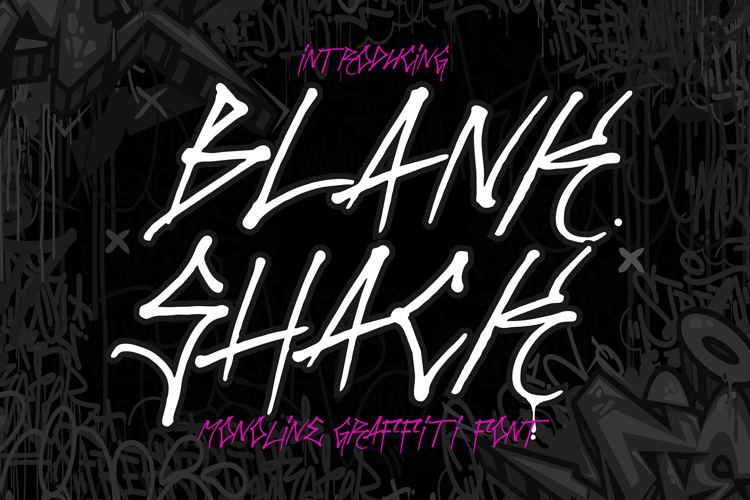
Blank Shack - Monoline Graffiti Font
Introducing Black Shack – the ultimate Monoline Graffiti Font that merges urban flair with sleek simplicity. Perfectly balancing the raw essence of street art with clean, modern lines, Black Shack is designed to add a bold and stylish edge to any creative project.
🎨 Urban Elegance: Black Shack captures the spirit of graffiti with its continuous, fluid strokes while maintaining a refined, monoline style. Each letter showcases a blend of urban attitude and minimalist design, making it ideal for projects that need a sophisticated street touch.
🌆 Stylish Rebellion: This font channels the rebellious energy of graffiti culture while delivering a clean and polished look. Perfect for branding, posters, event flyers, and more, Black Shack ensures your message stands out with a powerful yet elegant urban aesthetic.
🖌️ Monoline Precision: The consistent line thickness of Black Shack creates a harmonious and balanced appearance. This unique monoline style brings a fresh and contemporary twist to traditional graffiti fonts, making it a standout choice for modern designs.
💥 Bold and Clean: Designed to make an impact, Black Shack's bold yet clean letterforms capture attention and leave a lasting impression. Use it for headlines, titles, and other prominent elements to create striking and memorable visuals.
Elevate your designs with Black Shack – the Monoline Graffiti Font that combines the raw energy of street art with clean, modern lines. Perfect for making a stylish and bold statement, Black Shack is your go-to font for adding a sophisticated urban touch to any project.